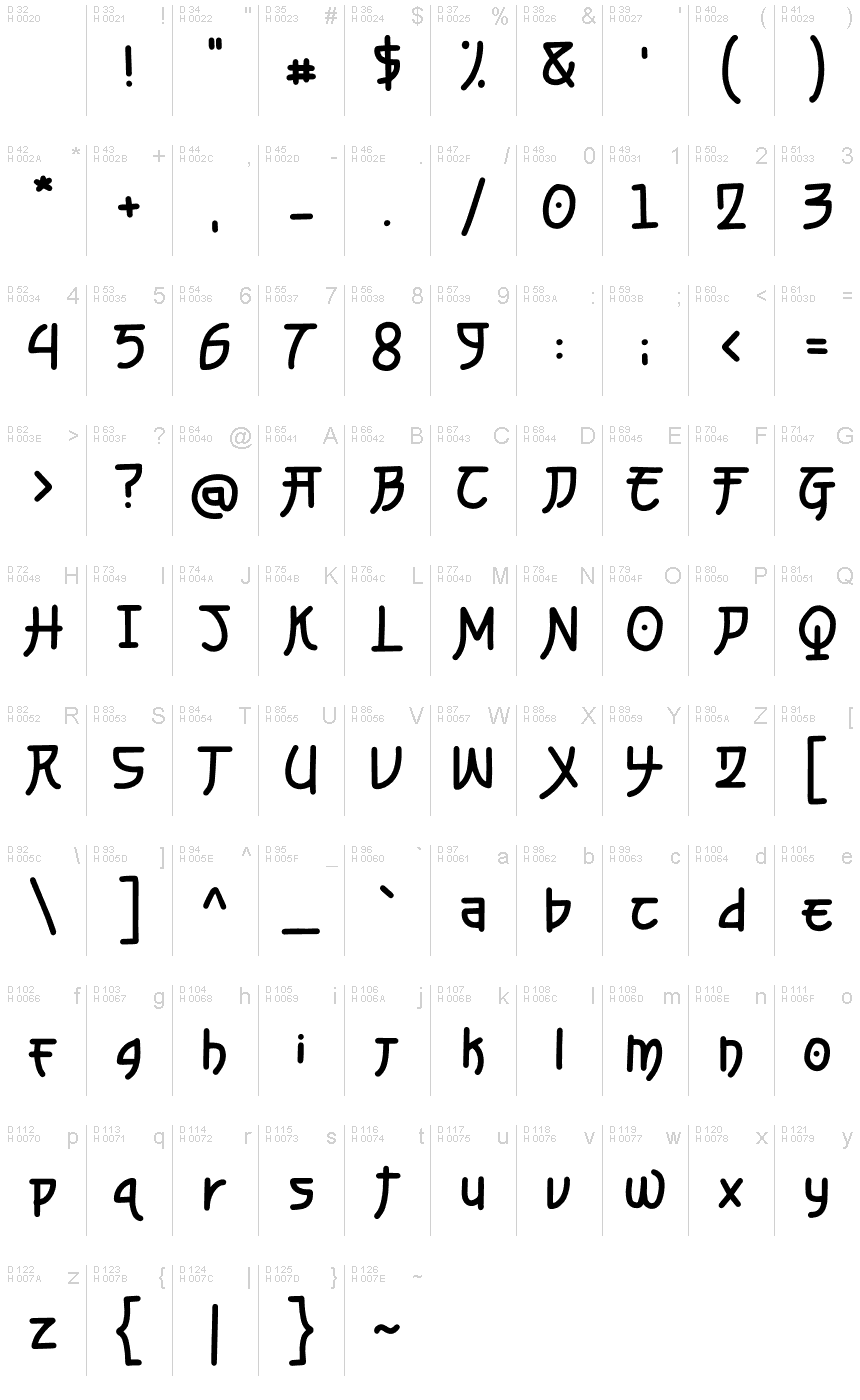
Hakubo is an awesome Japanese-inspired display font designed by Typefactory. It has a great readability and will add a striking touch to any design!
It will look awesome on any T-shirt, print, or restaurant brand!